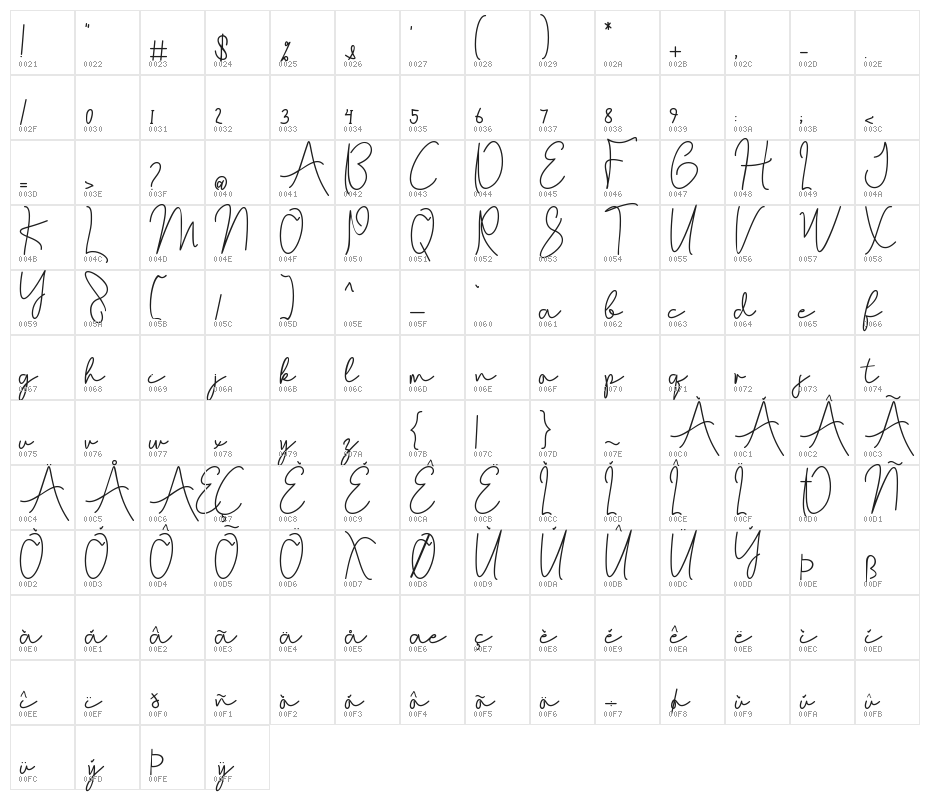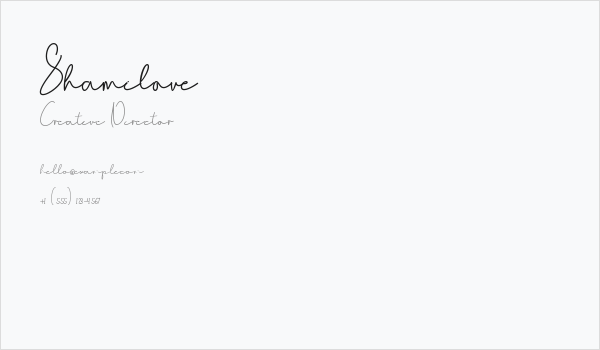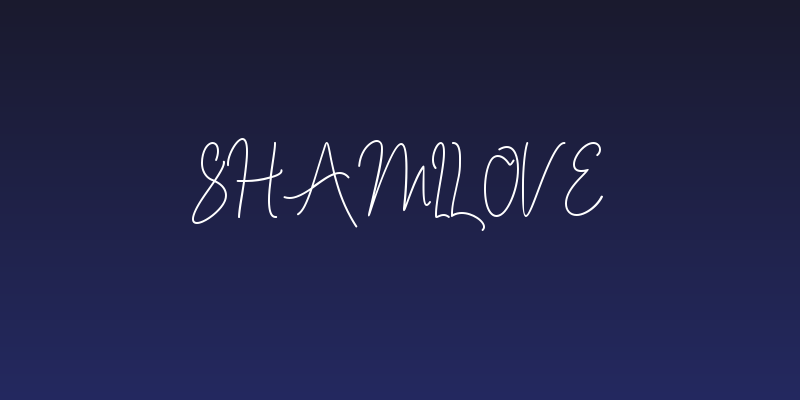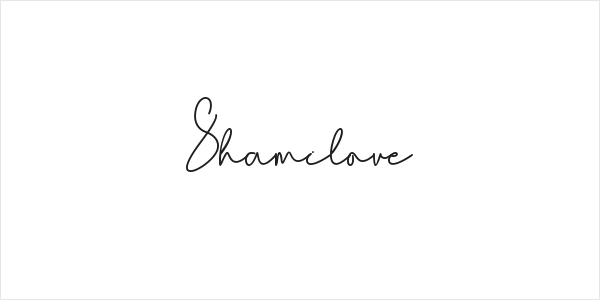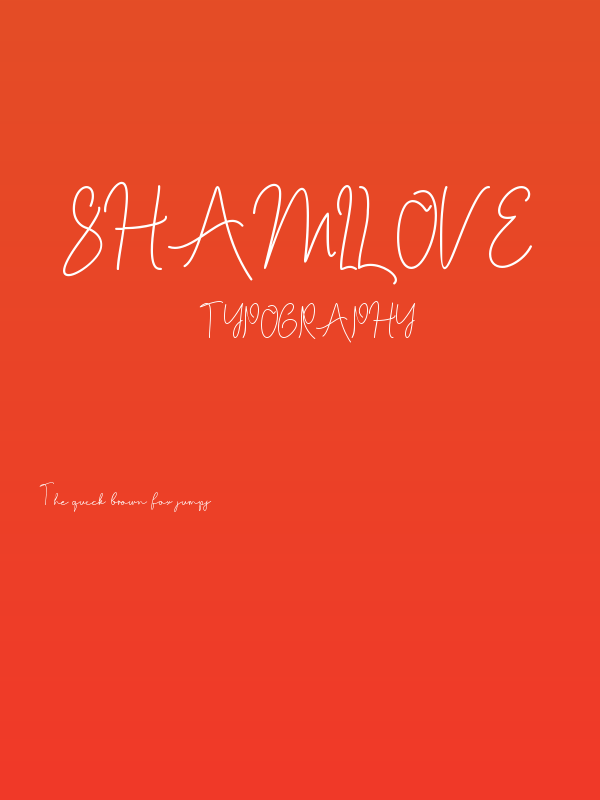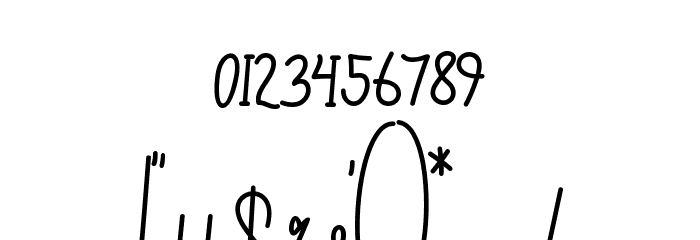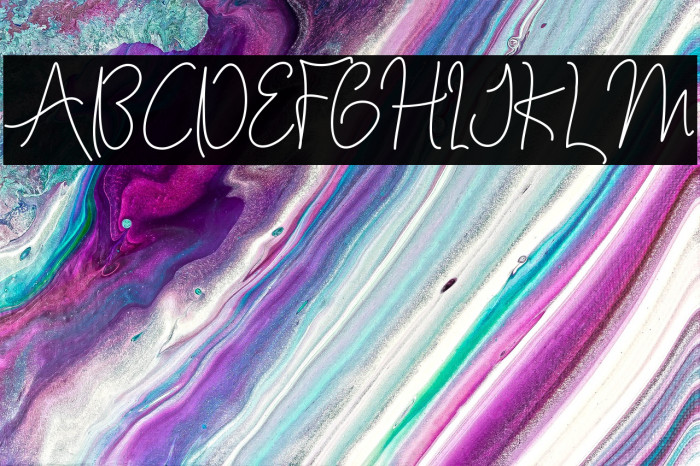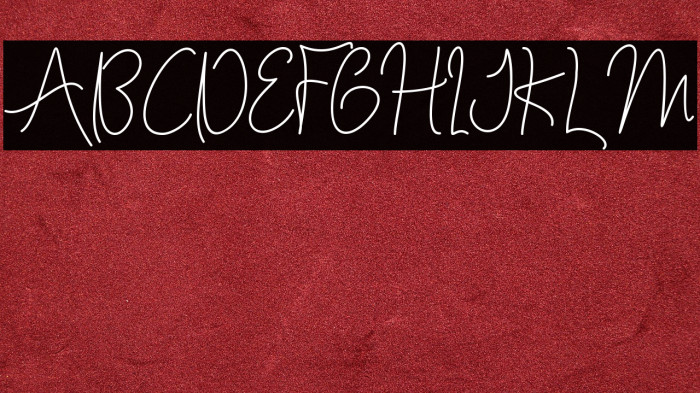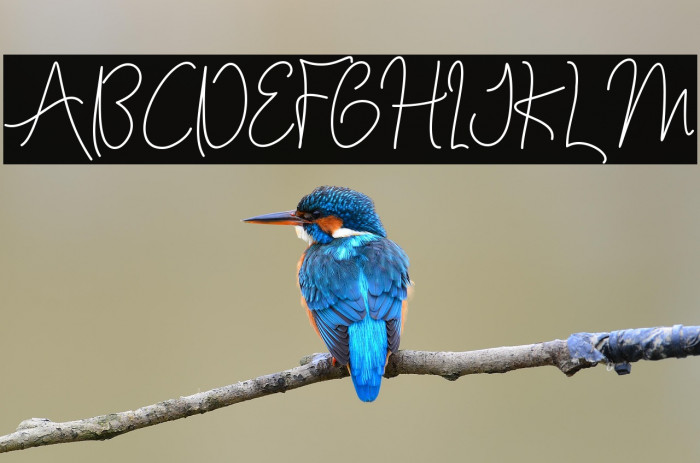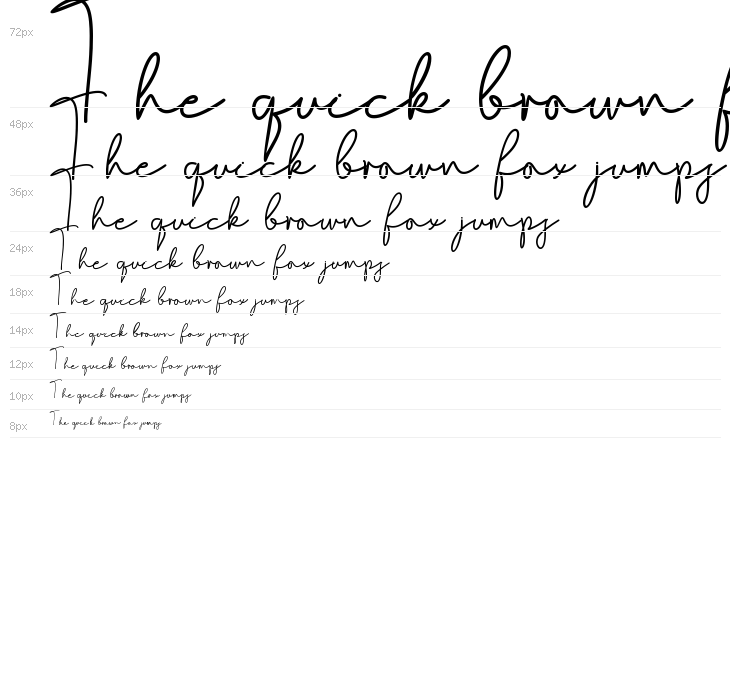
Shamilove Font
Shamilove Description
This font features a playful and elegant handwritten style, characterized by its fluid and continuous strokes. The uppercase letters are tall and slightly narrow, with a whimsical flair that adds a touch of personality. The lowercase letters maintain a consistent flow, enhancing the script-like appearance. Numbers are clear and legible, while special characters retain the same playful aesthetic. The overall design is both casual and sophisticated, making it suitable for a variety of creative projects.
| Proposed Projects | Ideal for wedding invitations, greeting cards, personal branding, and creative projects that require a personal touch. |